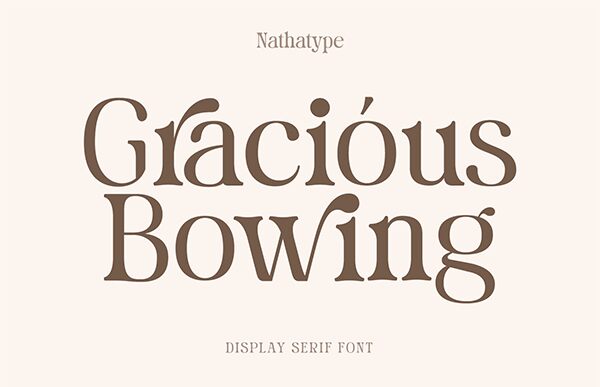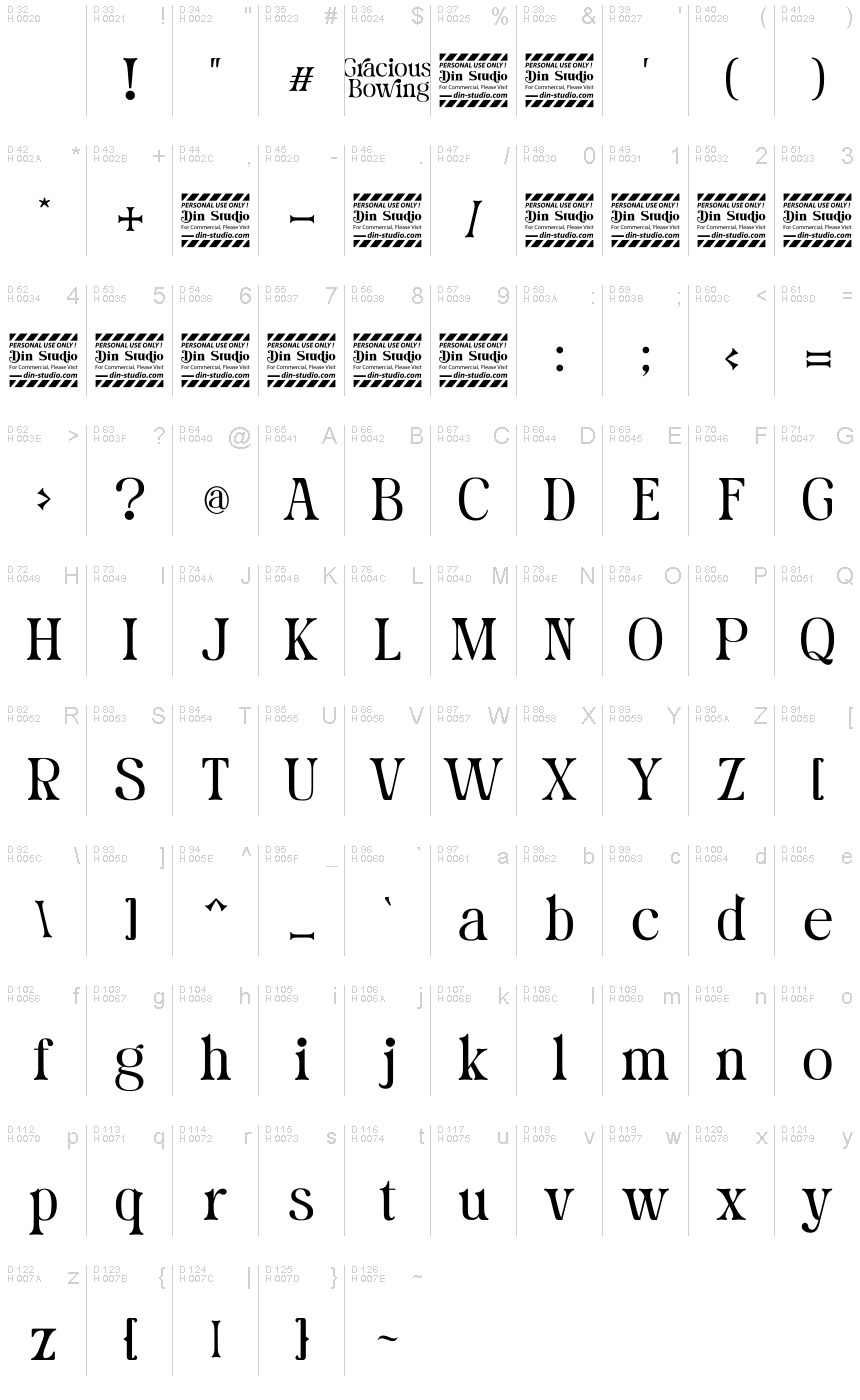
Gracious Bowing, crafted by the talented Raina, exudes a timeless elegance found in its serif style. Each character stands with a poised stature, inviting readers into a narrative wrapped in tradition yet whispered with contemporary flair. The font's strokes dance between delicate and robust, creating a visual harmony that resonates with sophistication and grace.
In the realm of design, Gracious Bowing is versatile and stately, making it an excellent choice for literary covers, editorial headlines, and upscale branding. It carries an air of formality that lends itself to ceremonial occasions or any project requiring a touch of class. This font doesn't just spell words; it weaves an ambiance of cultivated beauty into every line it forms.
Gracious Bowing is Playful Display Font